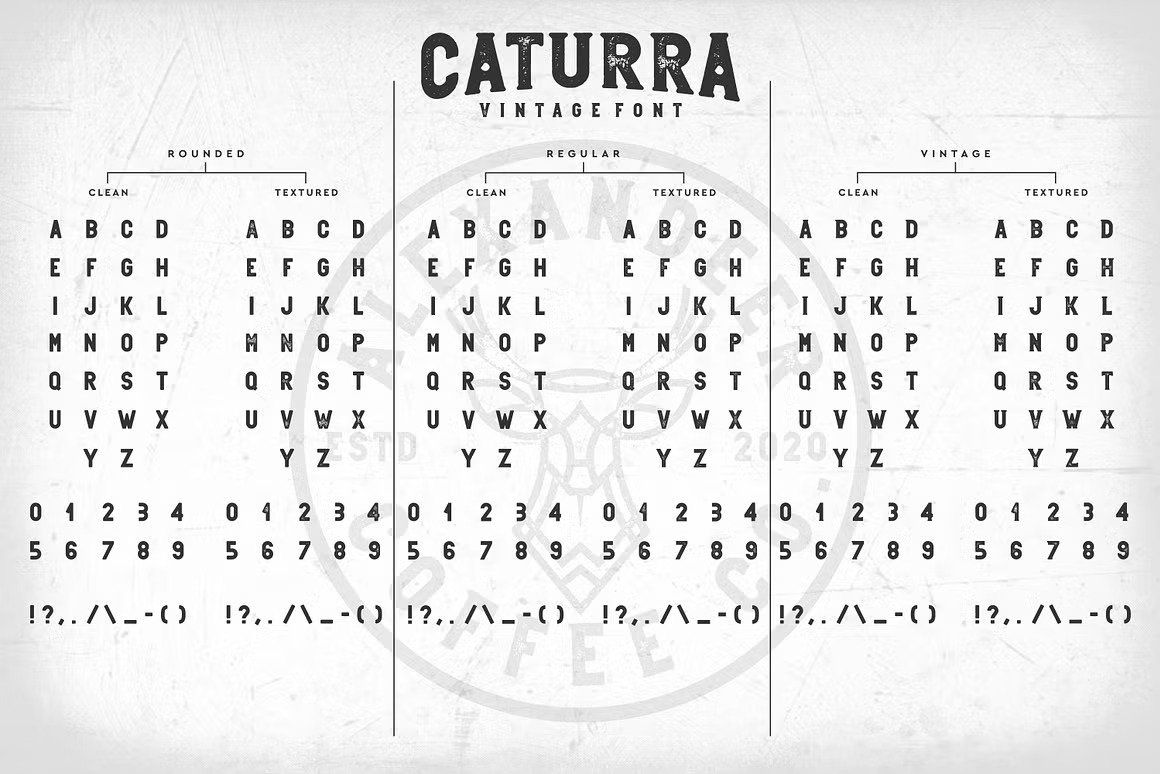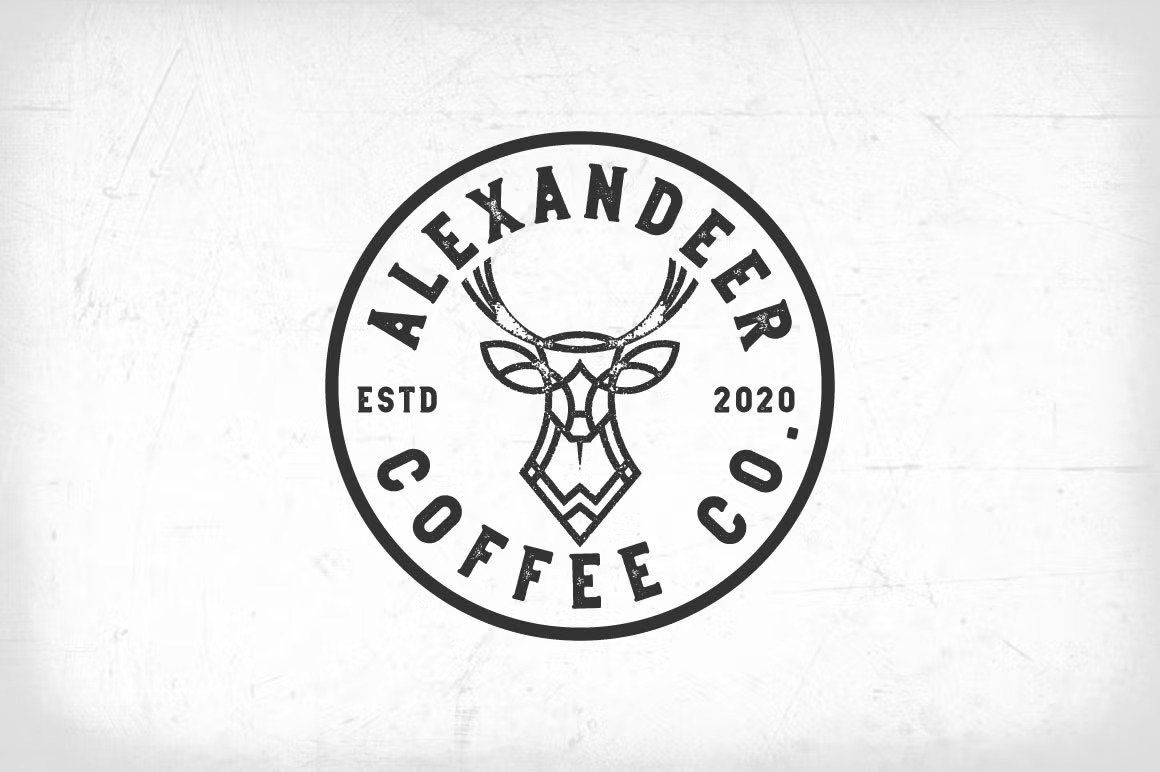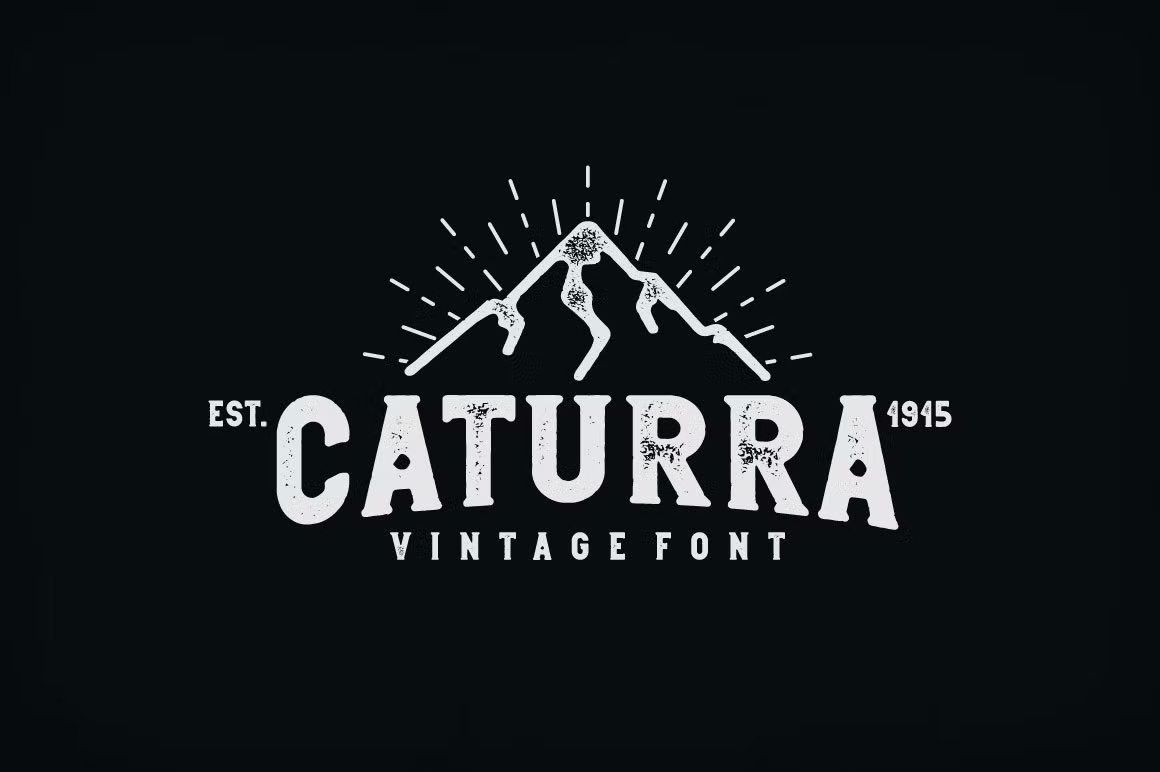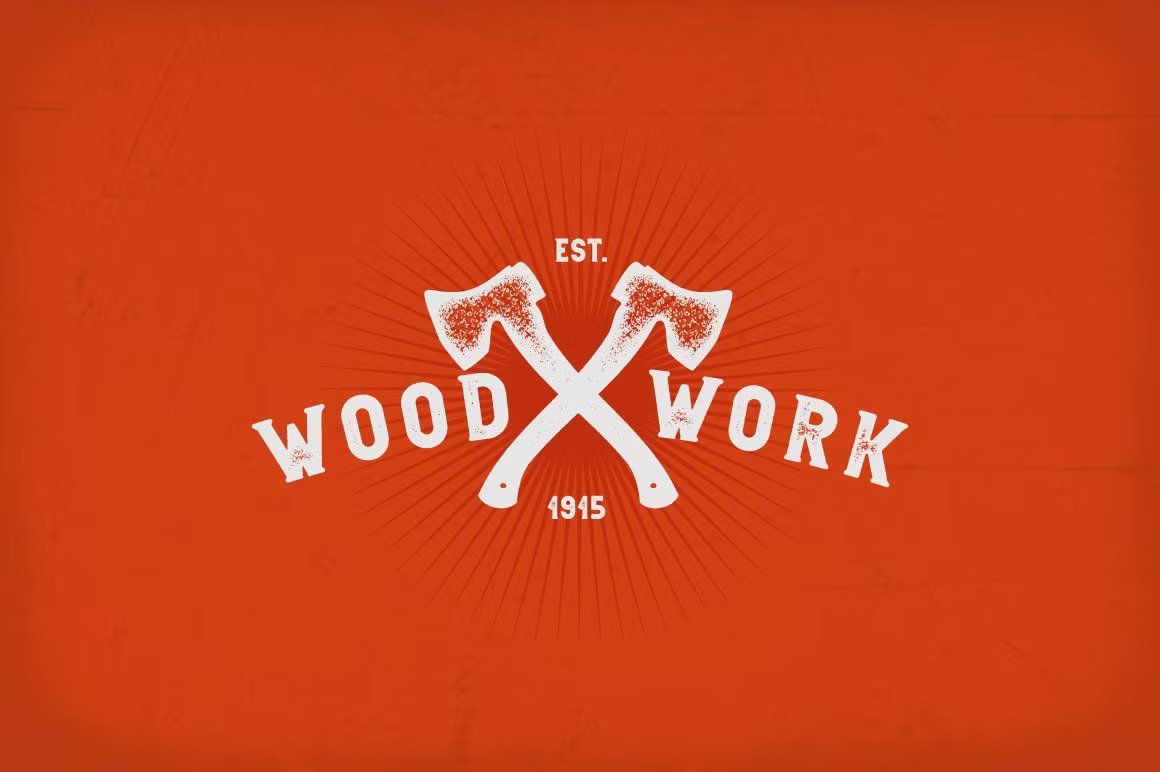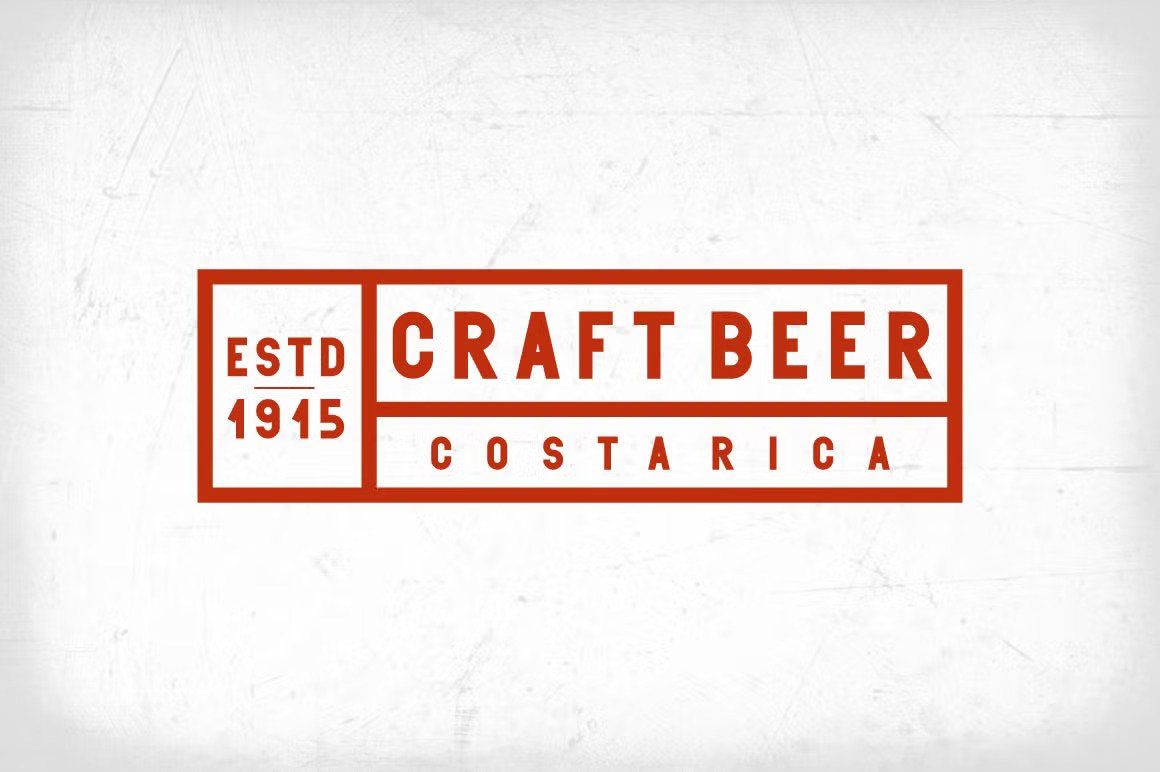
The Caturra Vintage Font by Alexander Co. studio can be a perfect choice if you want to use unique, vintage-style fonts in your designs. The Caturra Vintage Font has a clean yet expressive style that fits nicely with retro designs.
At first glance, the Caturra Vintage Font has strikingly detailed letterforms that are perfect for vintage-style design. However, the general use of the font is not limited to this: the Caturra Vintage Font can be easily applied to posters, flyers, websites, logos, and many other graphic design projects.
The font includes Latin basic letters and Arabic numerals, as well as additional characters such as periods, commas, colons, and other special characters. The font file format is OpenType, which means it can be used on multiple operating systems and software, and the combination of characters within the font can be easily created.
5 weights: regular, bold, light, medium, and ultralight
Highly detailed and elaborate characters and symbols
Perfect proportion and line work
Recommended for use in:
Web design
Posters
Labels
Any designed material